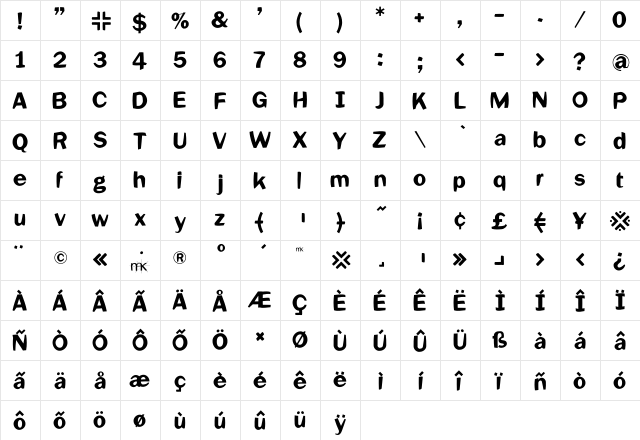
Frankophil Regular
Design Context for Frankophil Typeface
Frankophil is a composed and adaptable typeface that performs quietly and consistently across a wide range of design contexts.